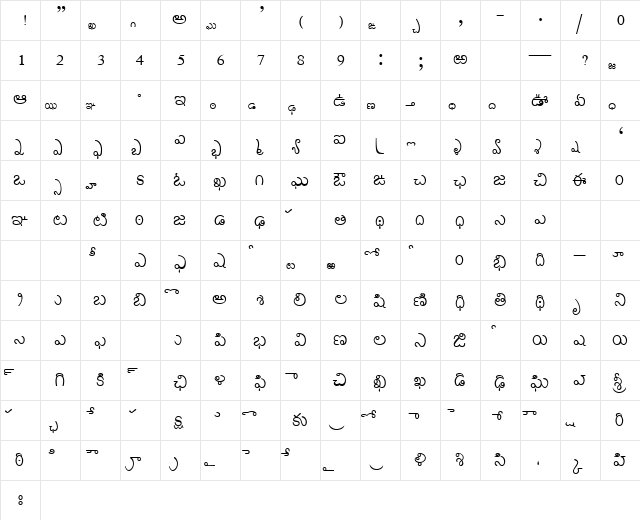
AkrutiTlgSarala Normal
Design Context for AkrutiTlgSarala Typeface
AkrutiTlgSarala offers clean, dependable letterforms without strong stylistic allegiance, making it a practical choice for designers who need flexibility.